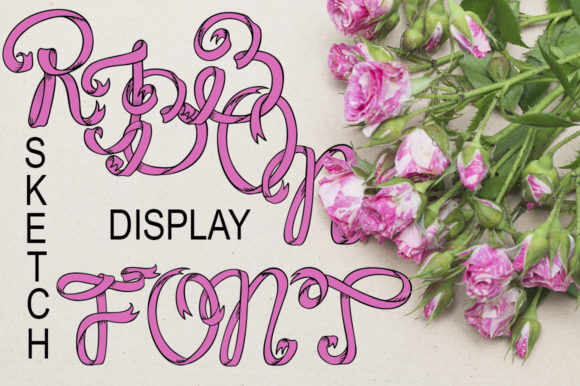
Step into the world of captivating typography with Ribbons Font, a modern display font that exudes readability, boldness, and a touch of stylish elegance. Crafted with precision by the talented Ana Babi, Ribbons Font is more than just a collection of letters and symbols; it's an artistic expression waiting to transform your designs.
With its smooth curves and graceful lines, Ribbons Font dances across your screens, captivating your audience with its effortless beauty. Its bold presence ensures maximum impact, making your messages impossible to ignore. Dive into a world where words come alive, where every letter carries a story, and every design tells a tale.
Picture your fashion branding adorned with the stylish strokes of Ribbons Font, exuding an aura of sophistication and timeless allure. Let your editorial designs flourish with the font's innate ability to capture attention and evoke emotions. Ribbons Font is the perfect companion for projects that demand impact, engagement, and a touch of modern flair.
Embrace the endless possibilities that await you with Ribbons Font. Add it confidently to your projects, and you'll be amazed by the transformative power it brings. Experience the joy of creating designs that resonate with your audience, leaving a lasting impression that lingers in their minds.
Unleash your creativity and let Ribbons Font be your muse. Dive into a world where typography takes center stage, where words become art, and designs become masterpieces.